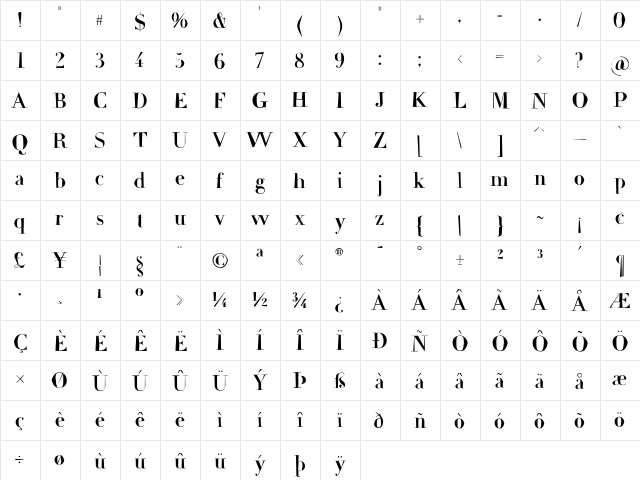
Frail Regular
| Foundry | sugargliderz |
| Designer | ks |
Design Context for Frail Typeface
Frail offers clean, dependable letterforms without strong stylistic allegiance, making it a practical choice for designers who need flexibility.